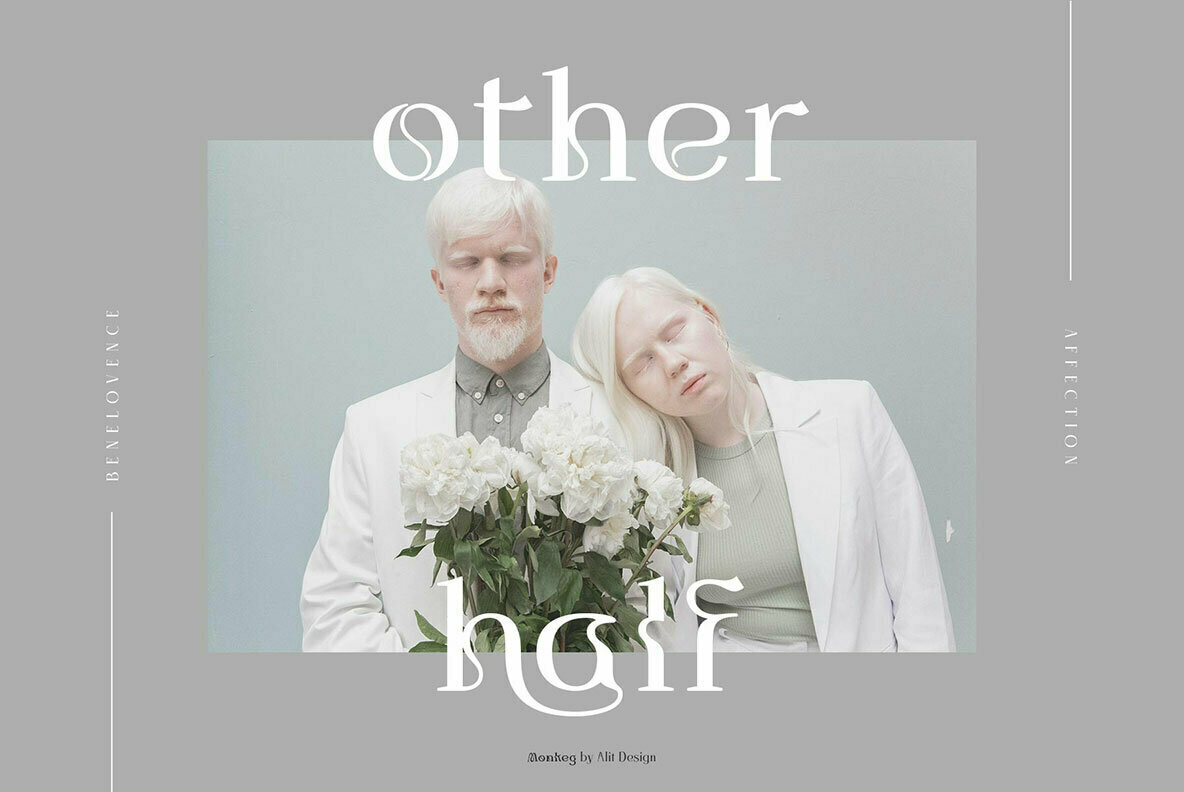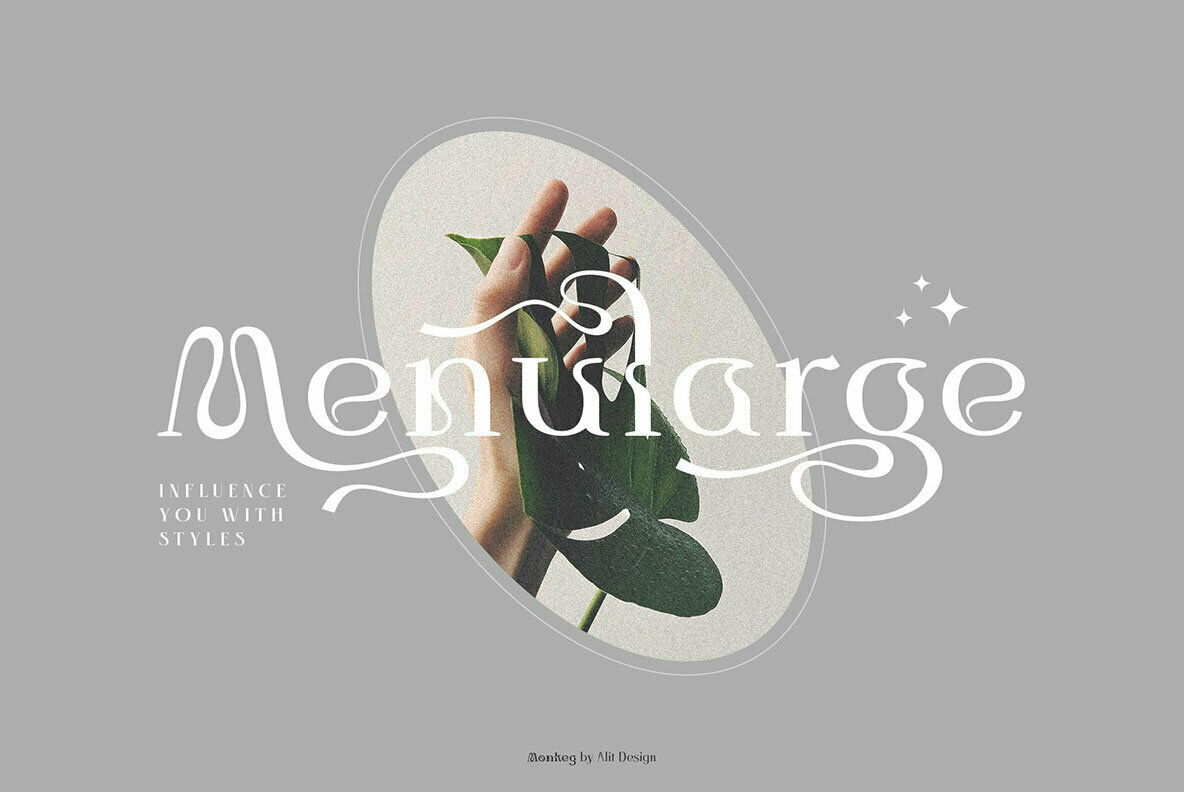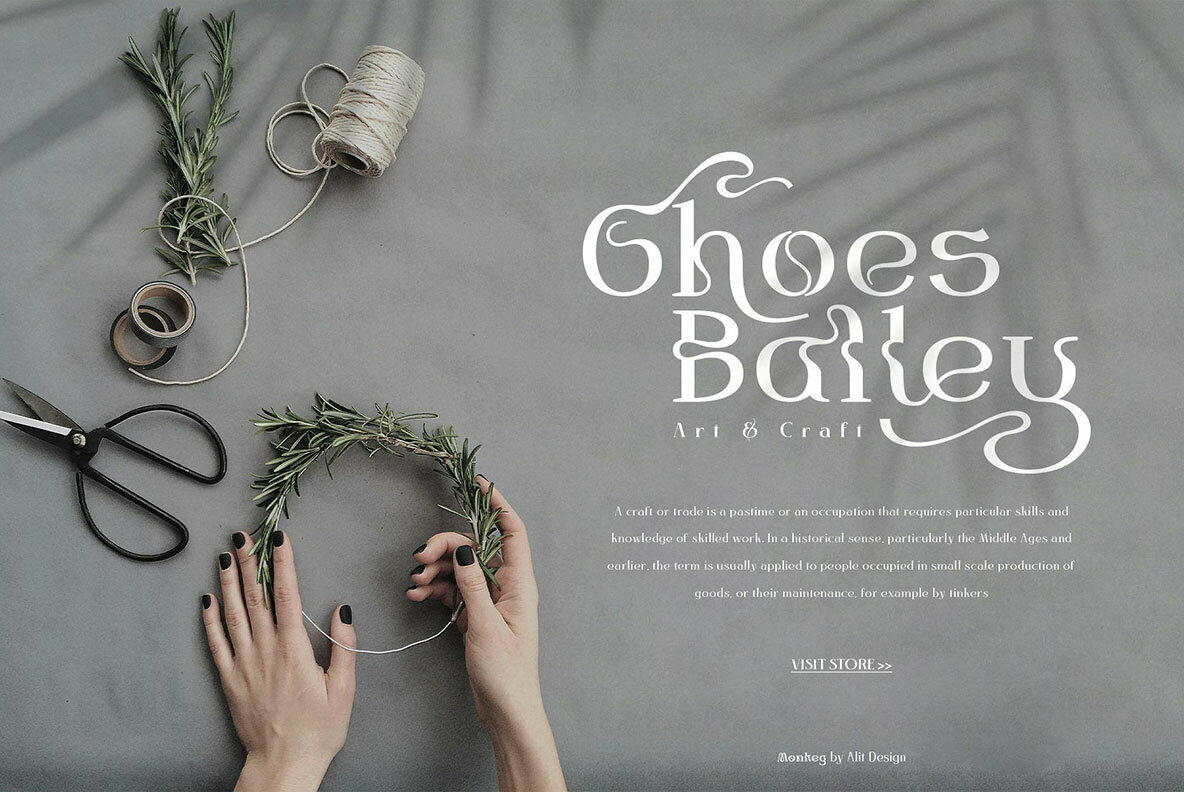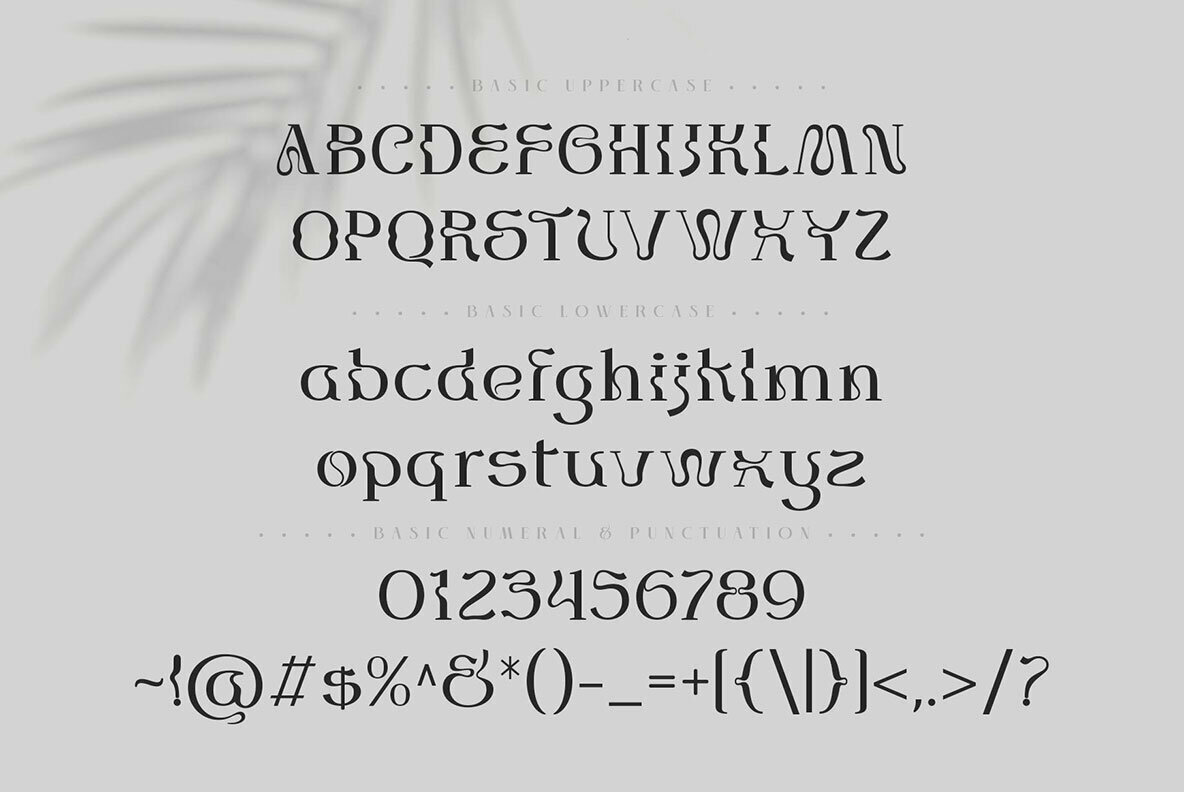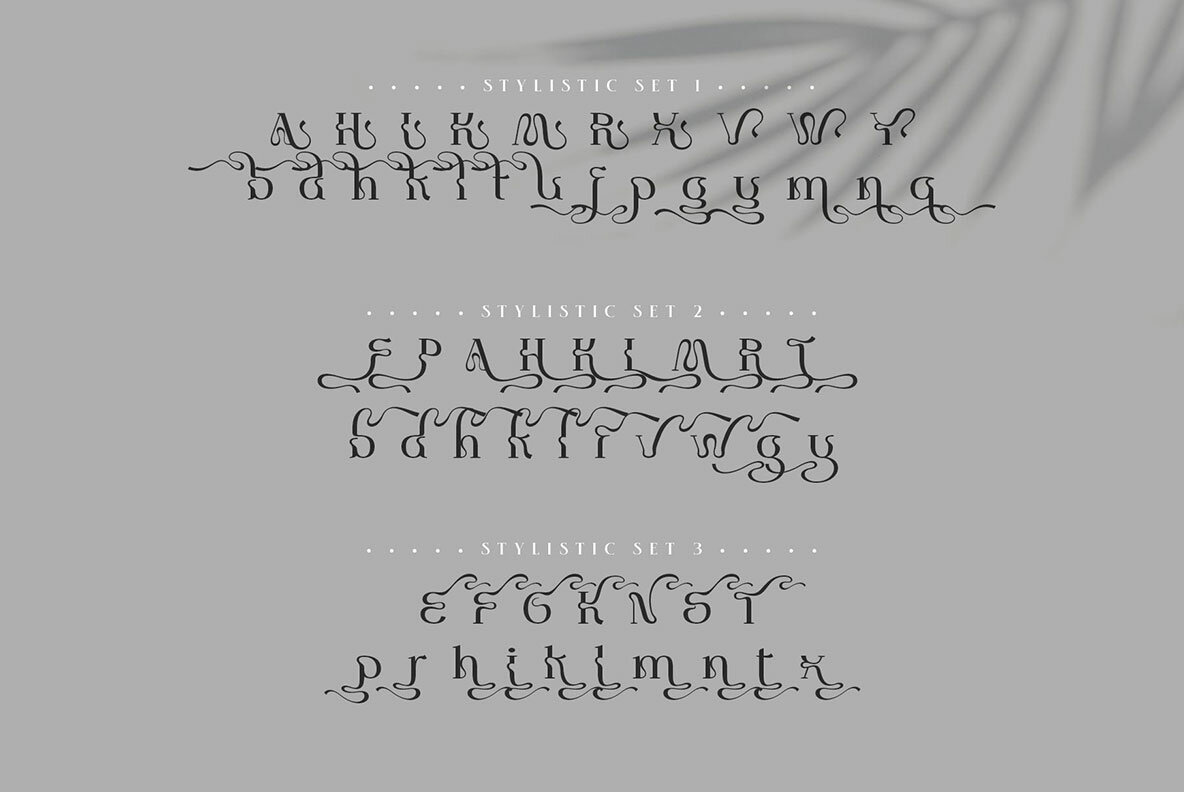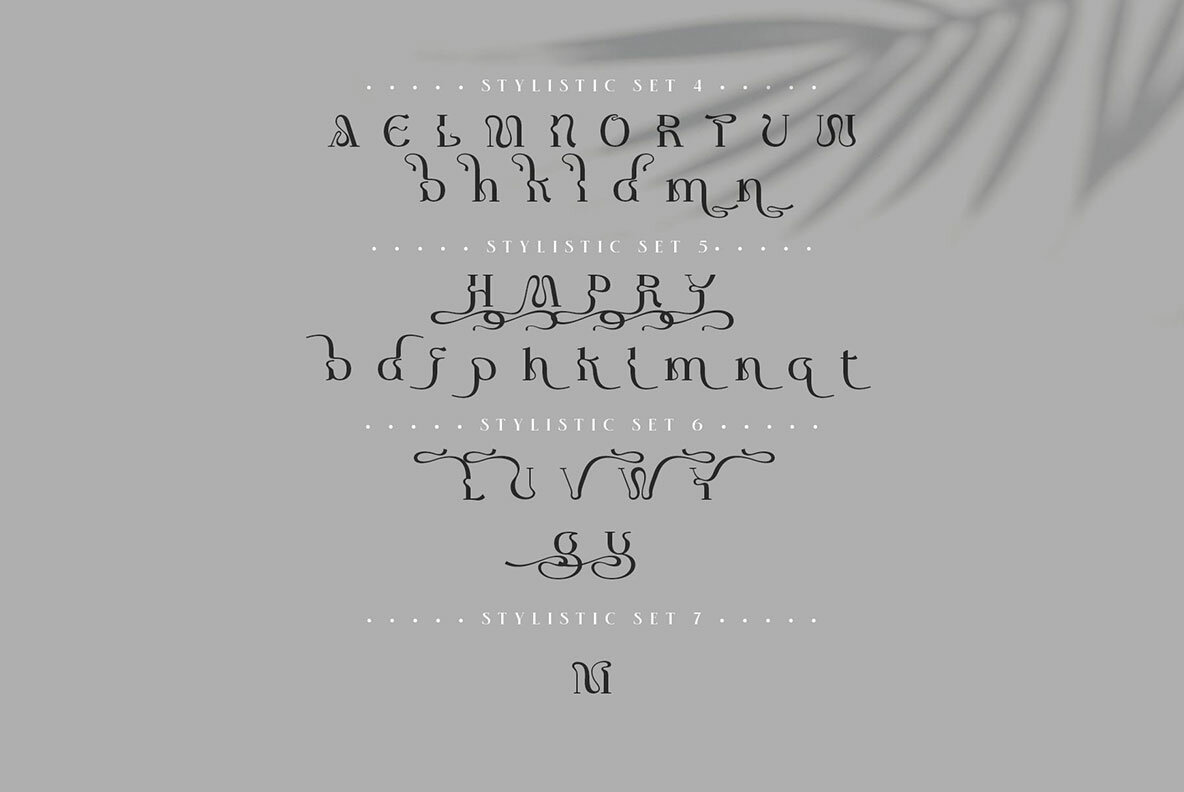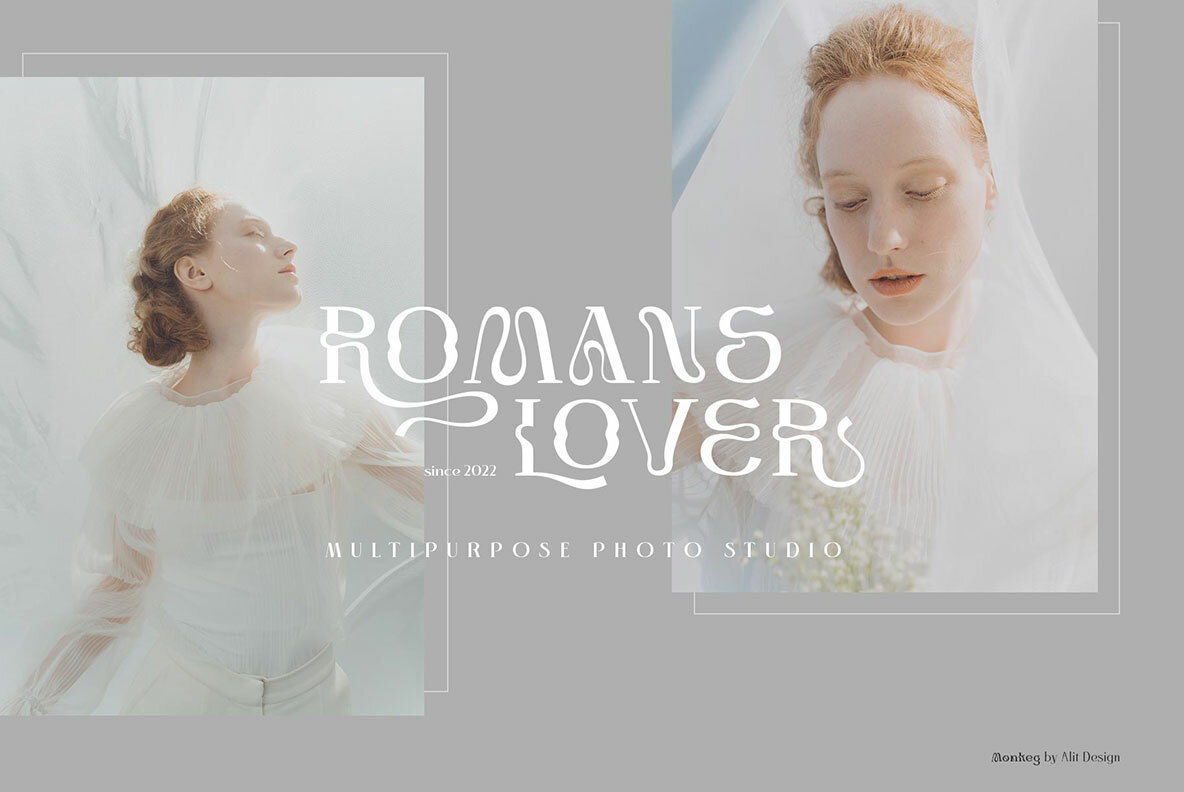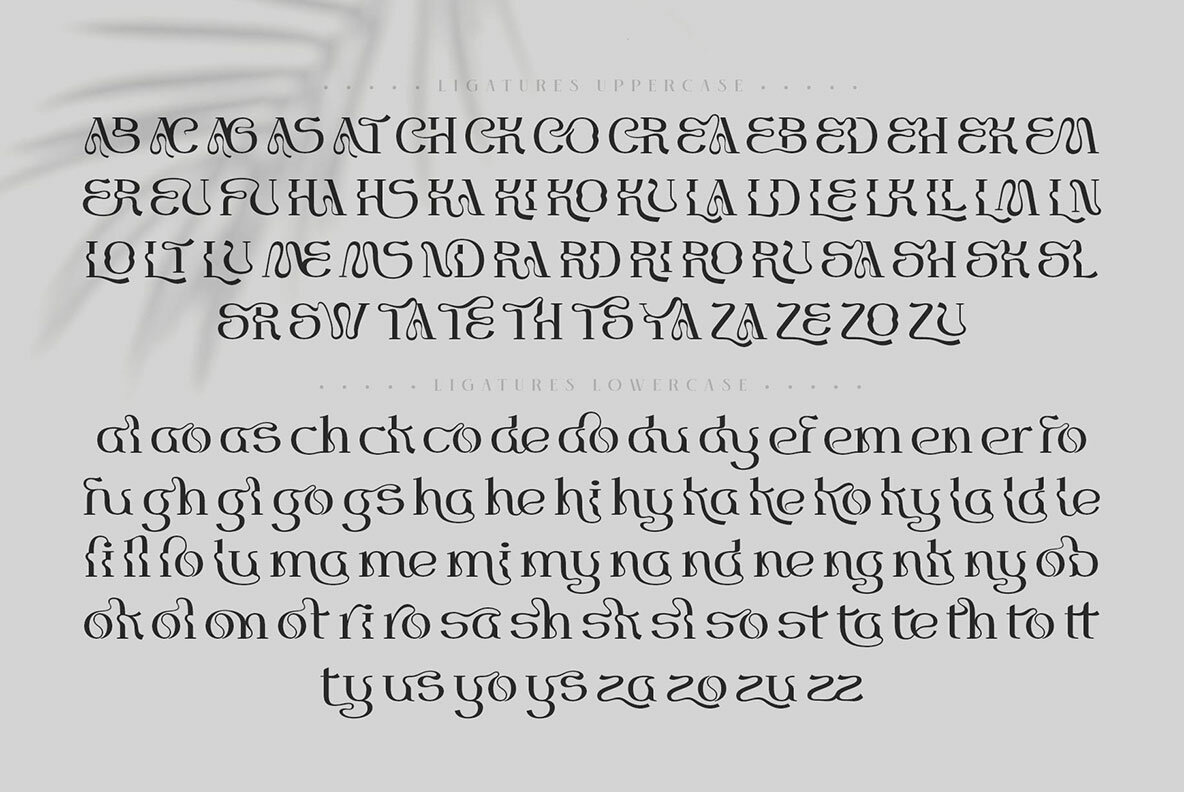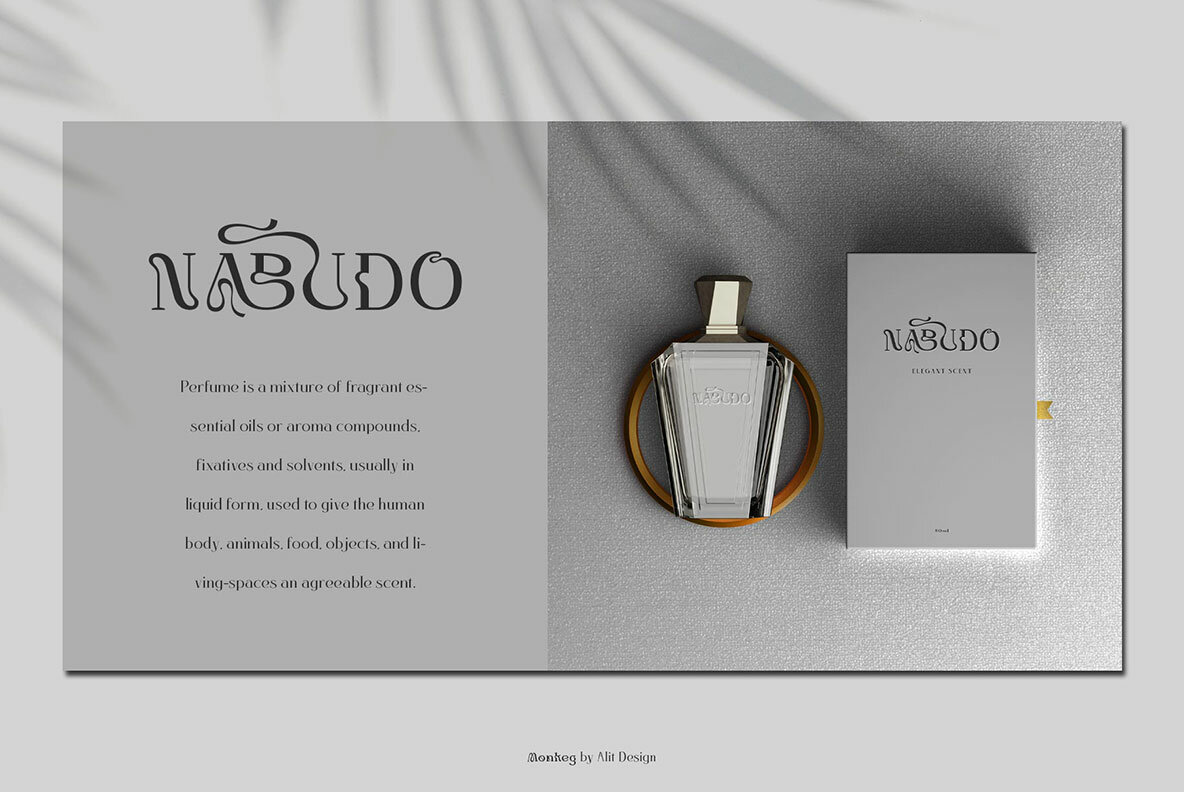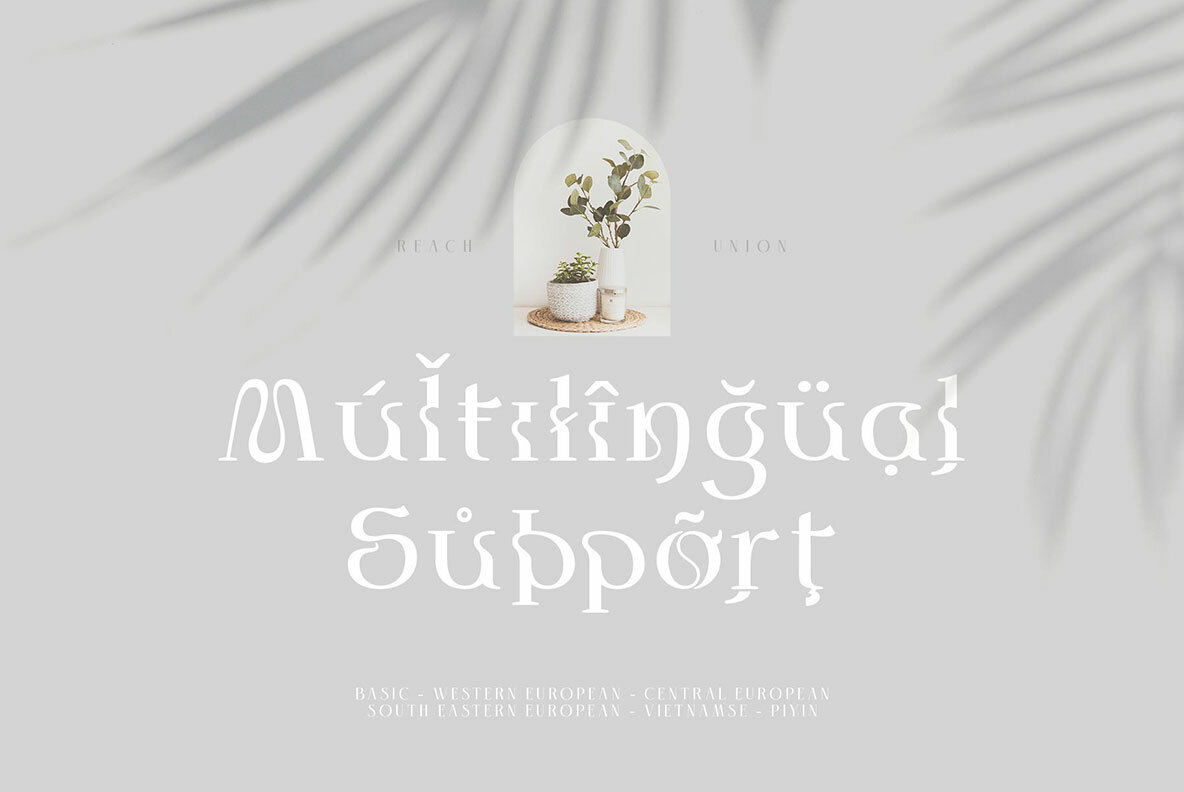
Monkeg Font
Monkeg Regular
The Monkeg Typeface is a modern font that has been designed to give off an impression of waves. The serif style adopted by this typeface makes it unique, in addition there's also swash alternatives and ligatures available for you choose from! All throughout our preview images, you can see how well-crafted these letters really are; they're sharp yet maintaining a degree of fluidity - which makes them perfect both aesthetically pleasing as well functional.